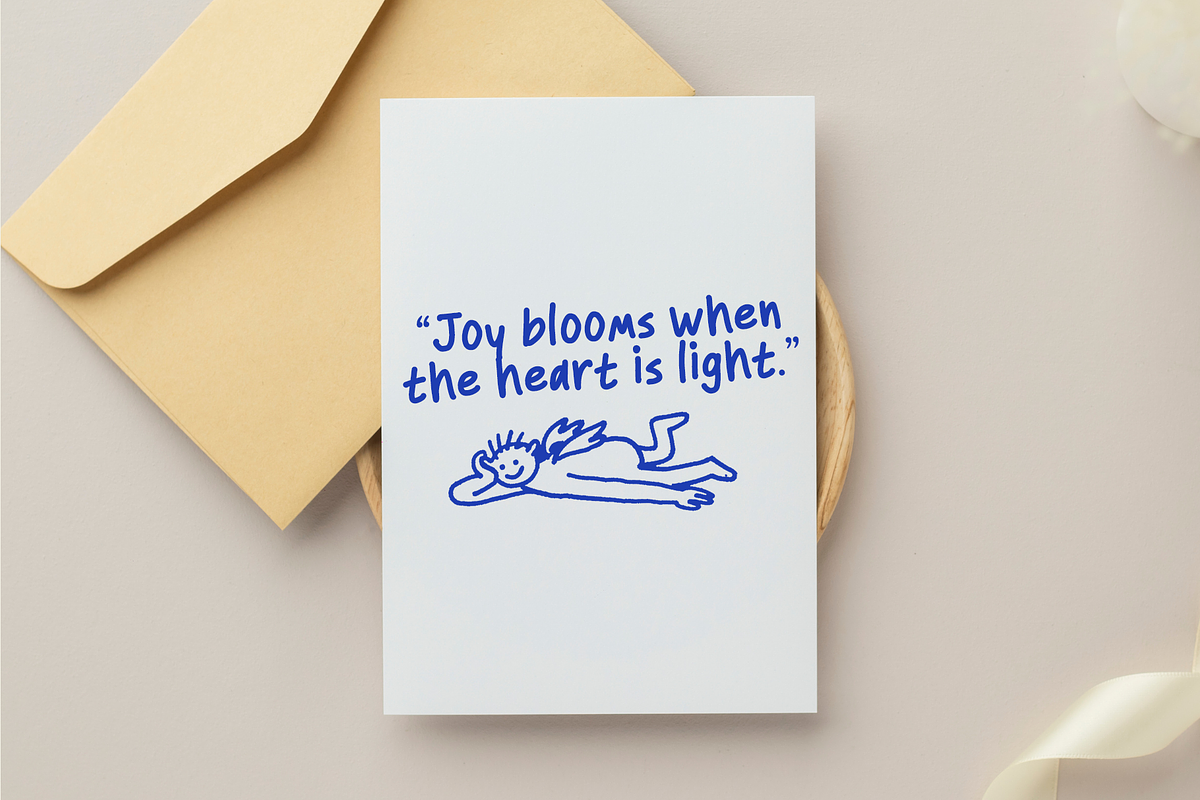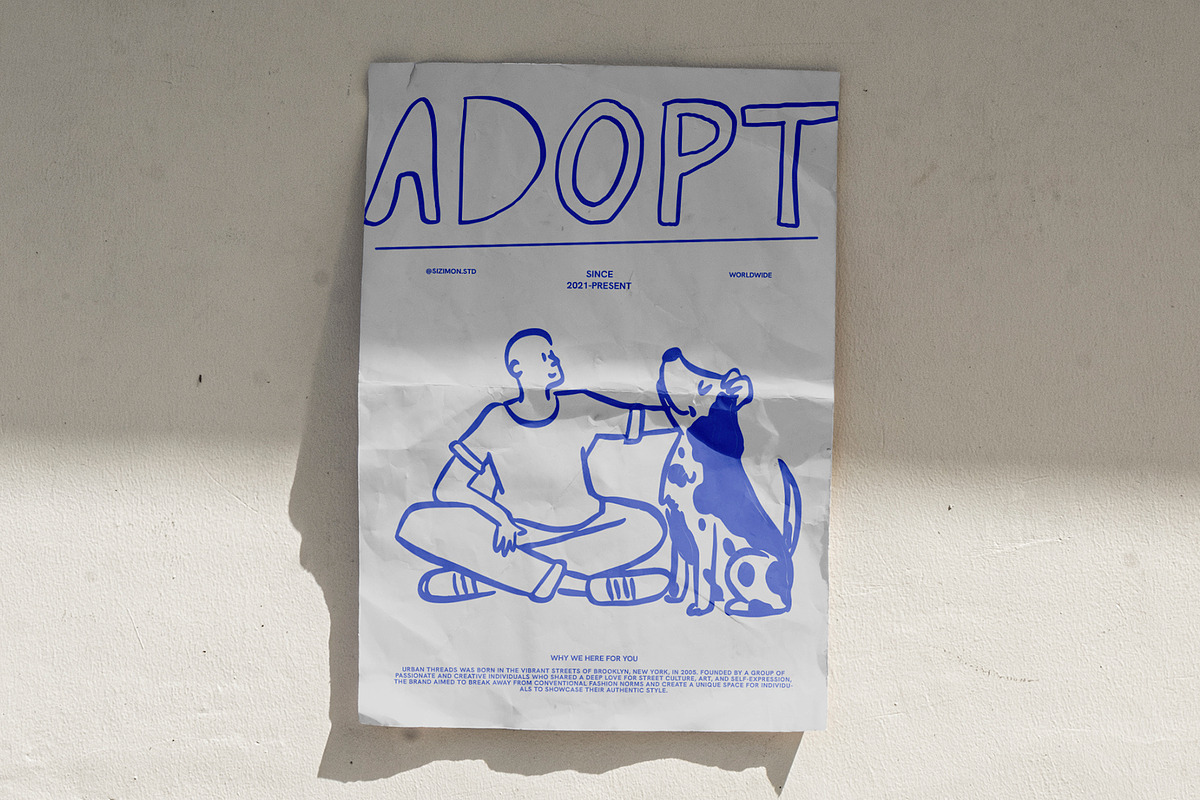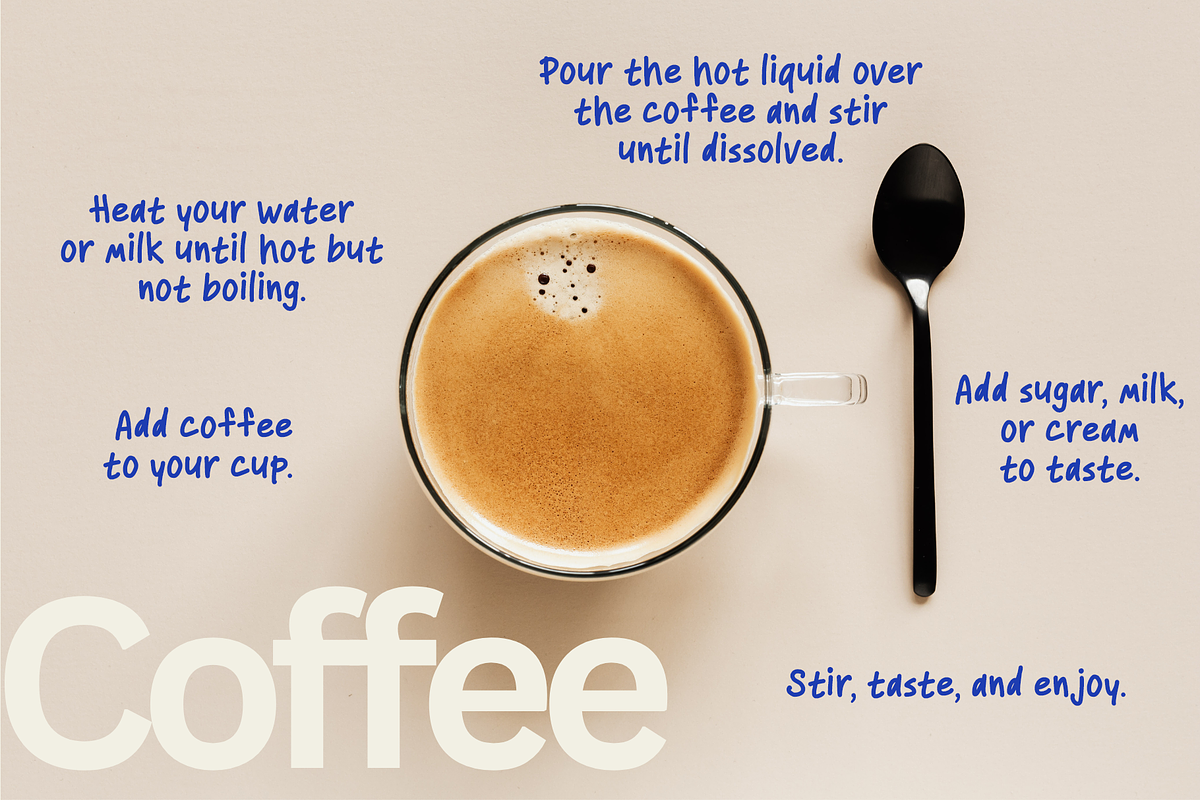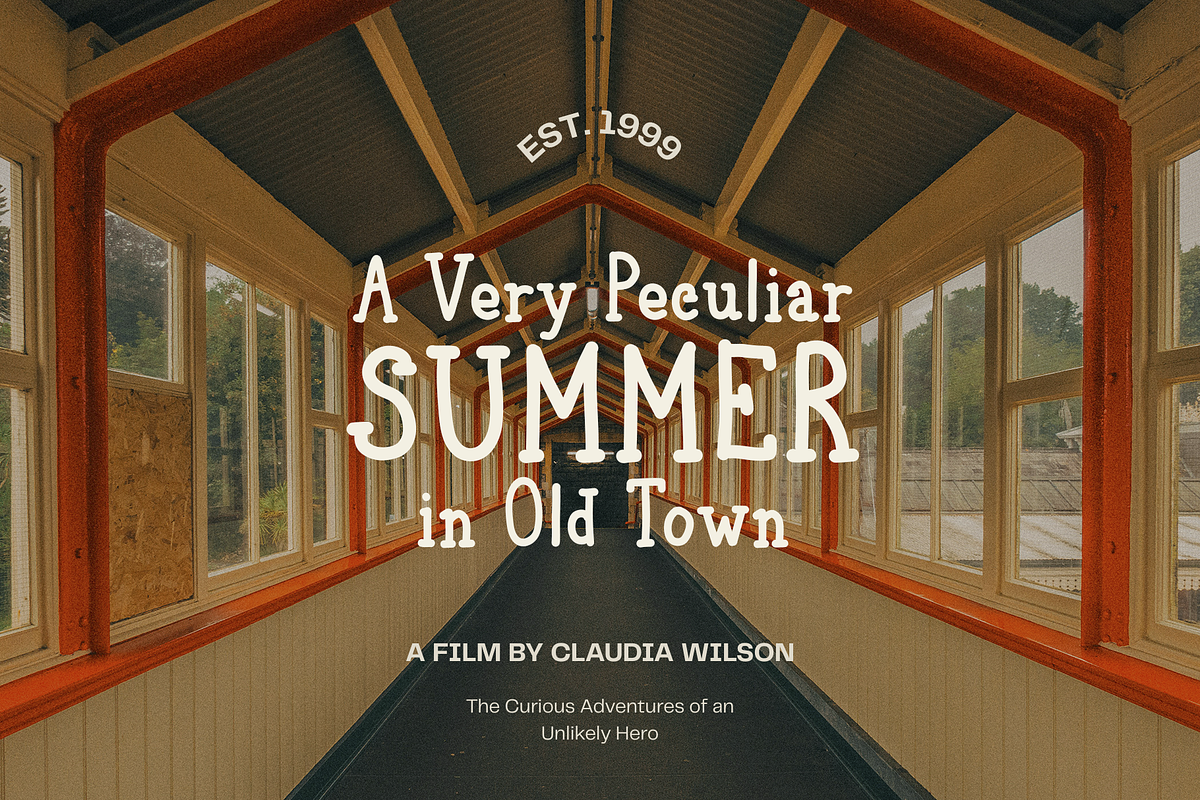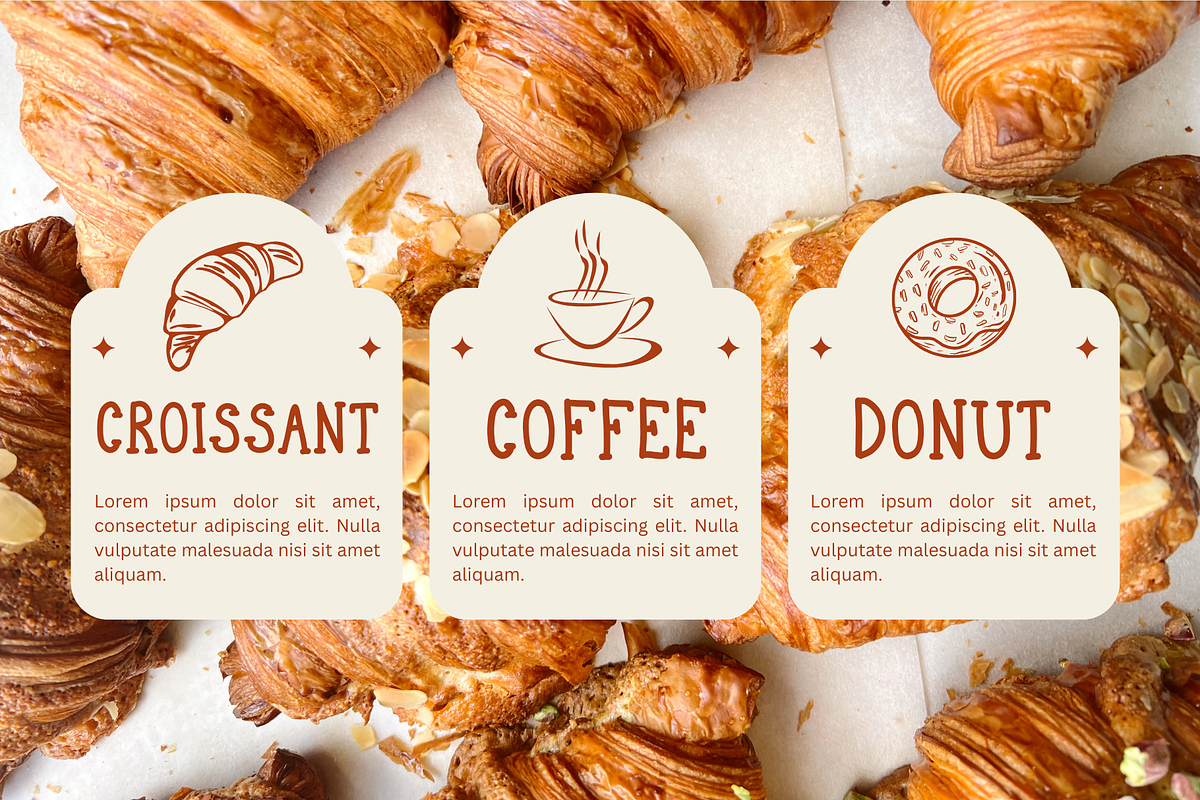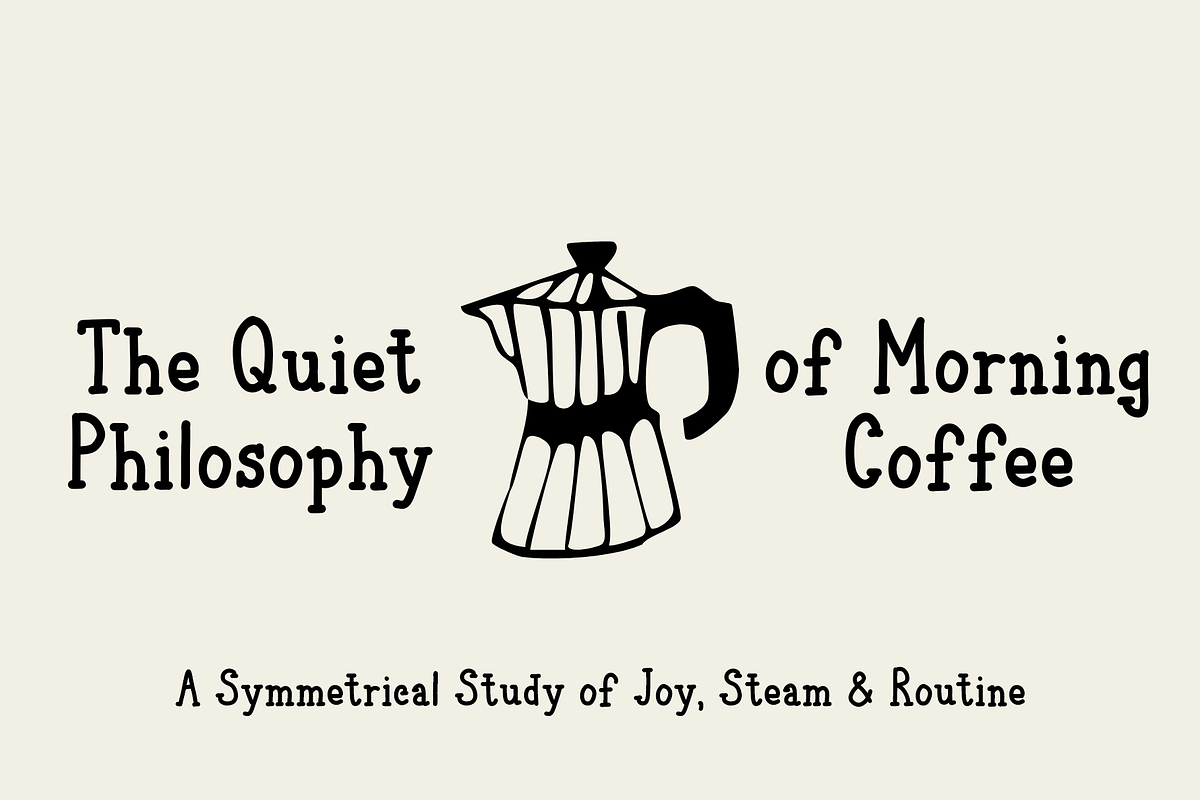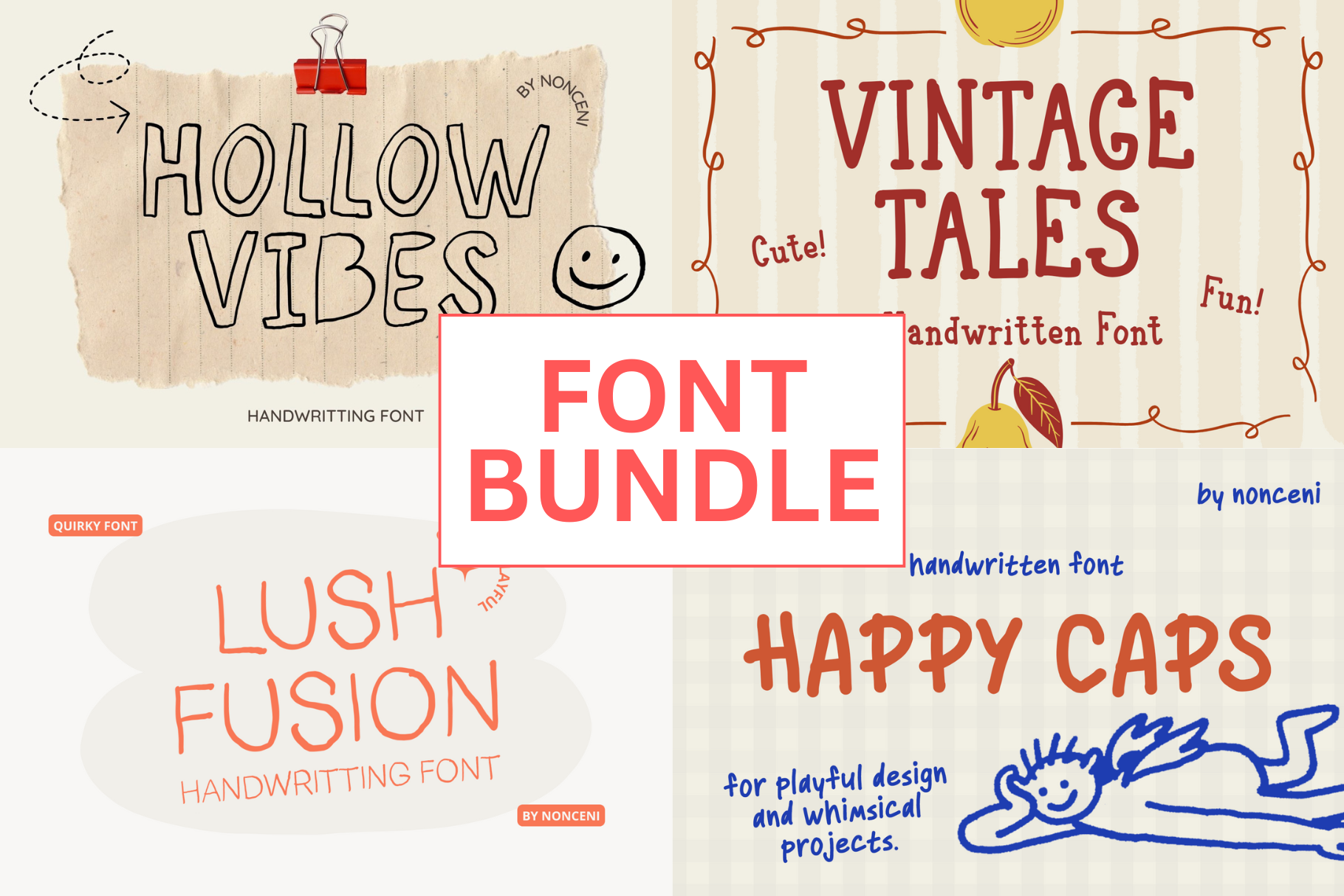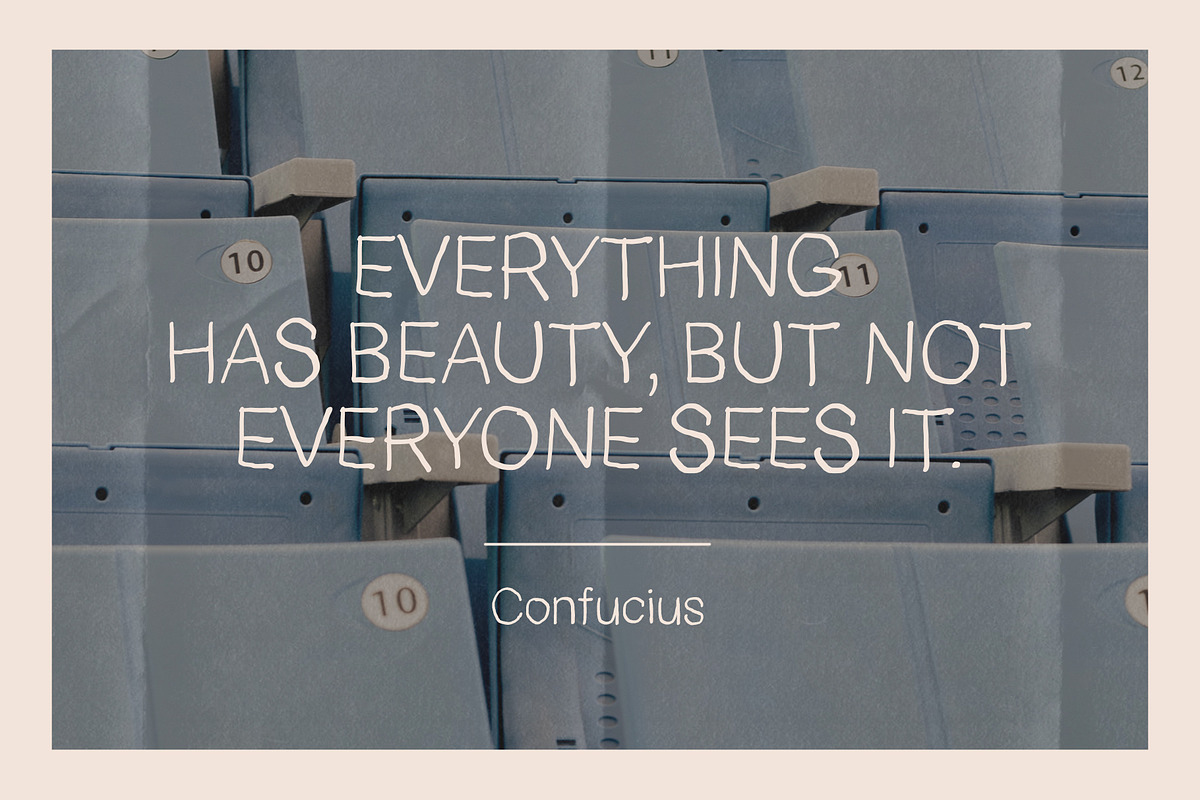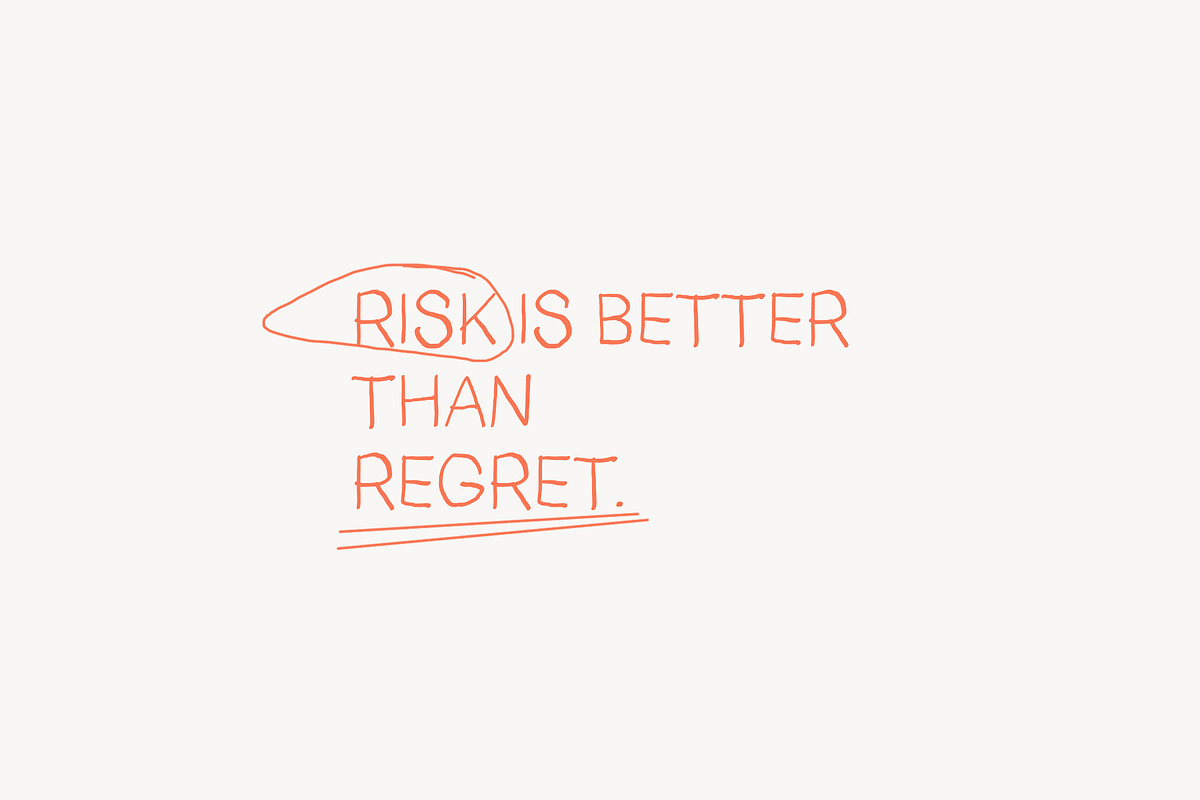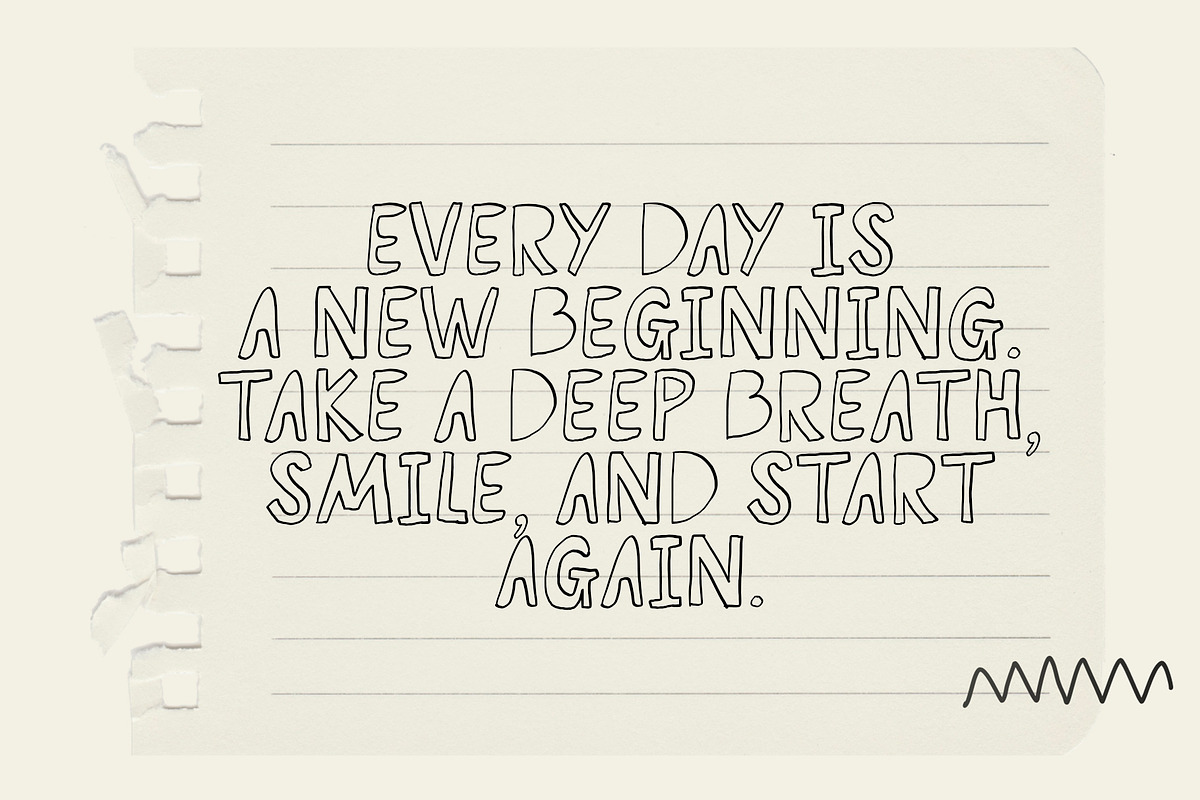
This Font Bundle is designed to bring a warm, human touch to your creative projects. Whether you are crafting a brand identity, designing social media graphics, or working on whimsical stationery, this collection offers four distinct "quirky" personalities to choose from.
Hollow Vibes: A stylish, outline handwriting font that’s perfect for headers, stickers, and paper-craft-inspired designs.
Vintage Tales: A tall, rustic serif-style handwritten font that evokes a sense of nostalgia—ideal for storytelling, book covers, and labels.
Lush Fusion: A soft, organic, and highly legible script that feels approachable and modern. Great for quotes and social media branding.
Happy Caps: A bold font bursting with energy. Use this for playful packaging, children’s products, or any design that needs to "pop."
Branding & Logos: Create a memorable, friendly identity for small businesses.
Social Media: Stand out on Instagram and Pinterest with custom-feel quotes and stories.
Stationery & DIY: Design unique greeting cards, invitations, and planners.
Packaging: Add a whimsical touch to product labels, tags, and boxes.
Handcrafted Aesthetic: Every letter is designed to look like real handwriting.